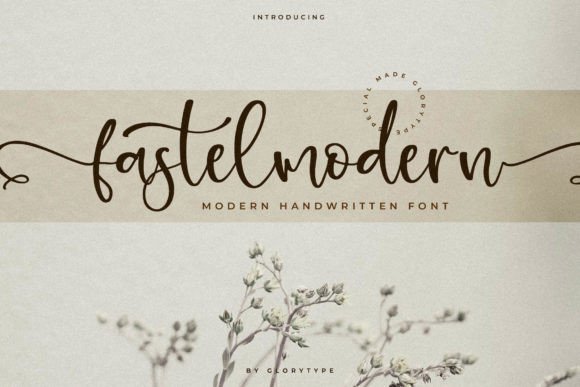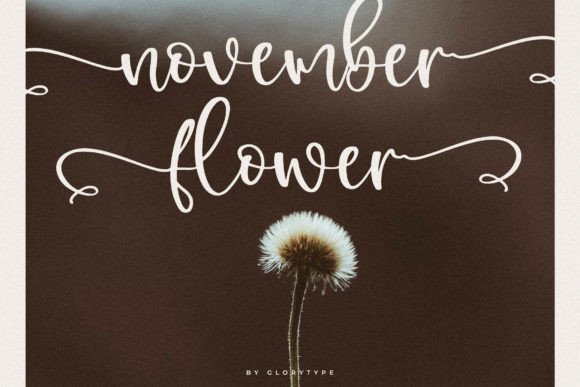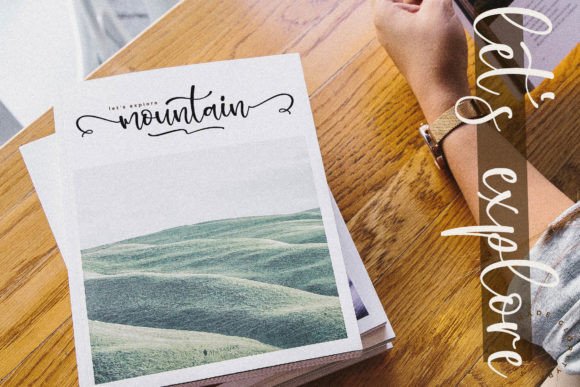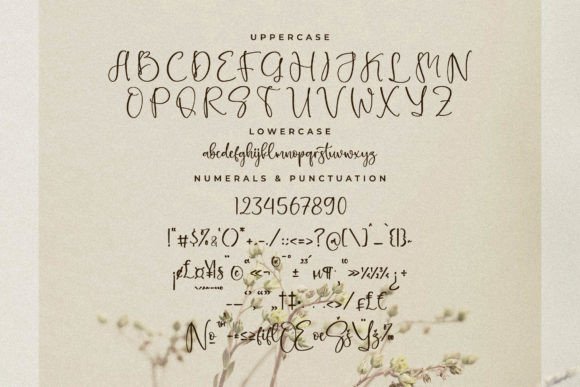
About Fastelmodern Font
Fastelmodern font is a modern handwritten script designed to bring elegance and style to a wide range of creative projects. When you download Fastelmodern font, you add a versatile and beautifully crafted script to your font collection, ideal for enhancing logos, branding, and more.
Stylish and Contemporary Script
Fastelmodern offers a clean yet artistic handwritten style that fits perfectly with today’s design trends. Whether you’re working on branding projects or product packaging, this font adds a fresh, modern vibe to every creation. Its smooth strokes and balanced letterforms make it an excellent choice for mugs, shopping bags, t-shirts, and other merchandise.
Perfect for Personal and Professional Projects
This font shines in both personal and professional applications. Use Fastelmodernfont for quotes, posters, book covers, and name cards. It’s also an ideal choice for invitation and greeting cards, adding a warm and personalized touch to your special events.
Wide Range of Uses
Fastelmodernfont is also suited for photography watermarks and labels, ensuring your work carries a distinct and elegant signature. Its legibility and style make it perfect for digital and print projects alike.